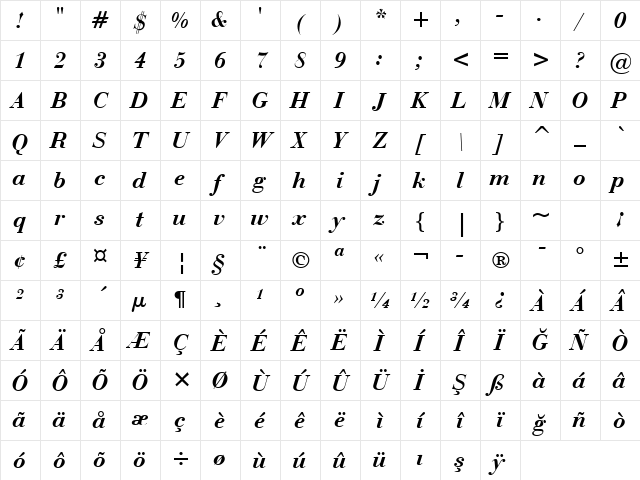
BauerBodoni BT Bold Italic
Design Context for BauerBodoni BT
BauerBodoni BT is a composed and adaptable typeface that performs quietly and consistently across a wide range of design contexts. The slanted form adds forward momentum and visual energy. Its bold stroke weight gives it real presence on the page.
Pro Tip: Use BauerBodoni BT for emphasis, pull quotes, and subheadings where its slanted energy can add rhythm to the layout.